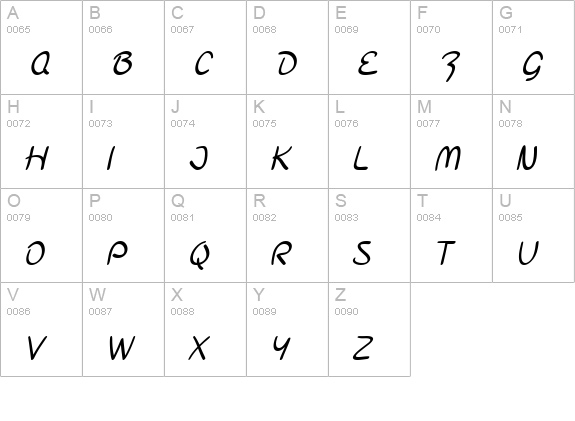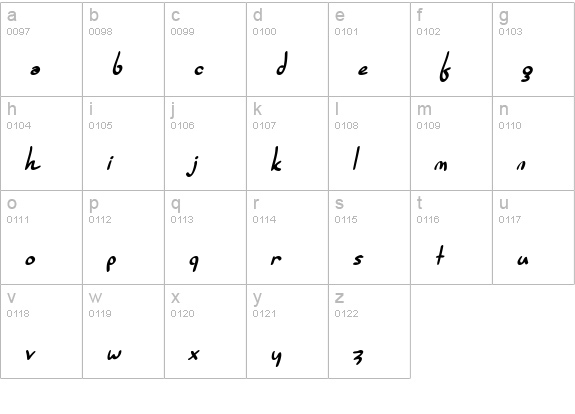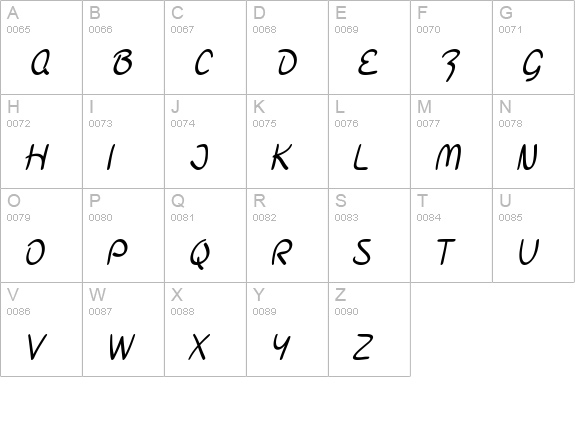
SF Burlington Script Bold Font Details
SF Burlington Script Bold is a strong, high-contrast variant in the SF typeface family \xE2\x80\x94 well suited to headlines, attention-grabbing titles, and strong calls-to-action.
SF Burlington Script Bold is a captivating and versatile font that effortlessly blends elegance with a touch of playfulness. Its bold and dynamic strokes create a striking visual impact, making it perfect for a wide range of design projects. This font exudes confidence and sophistication, making it ideal for branding, logo design, packaging, and editorial work. Whether you're looking to create eye-catching headlines or add a touch of flair to your designs, SF Burlington Script Bold has got you covered. One of the best things about SF Burlington Script Bold is that it is absolutely free. Yes, you read that right! This stunning font is freely available to download at FontsMarket.com. Now you can enjoy the beauty and versatility of SF Burlington Script Bold without having to spend a dime. With its wide range of ligatures, alternate characters, and swashes, SF Burlington Script Bold offers endless possibilities for customization and creativity. You can easily achieve a personalized and unique look for your projects by exploring the various options this font has to offer. SF Burlington Script Bold is designed with attention to detail, ensuring that each character flows seamlessly into the next. Its smooth and organic curves give it a hand-drawn quality, adding a touch of warmth and authenticity to your designs. So why wait? Download SF Burlington Script Bold now from FontsMarket.com and elevate your designs to a whole new level. With its bold and captivating presence, this font is sure to make a lasting impression on your audience.